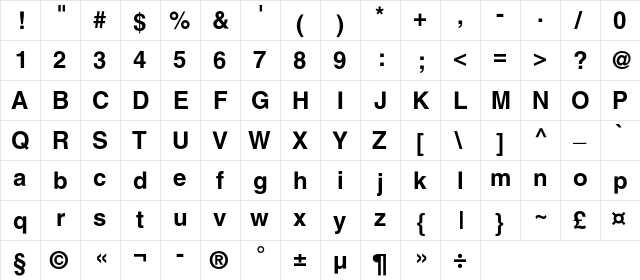
AGLettericaC Bold
Design Context for AGLettericaC Typeface
AGLettericaC takes a measured approach to typography — its balanced proportions and neutral character make it a reliable workhorse for both digital and print work. The heavy weight commands attention and anchors typographic hierarchies.